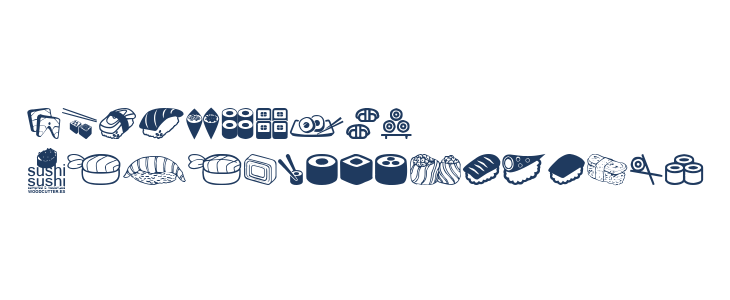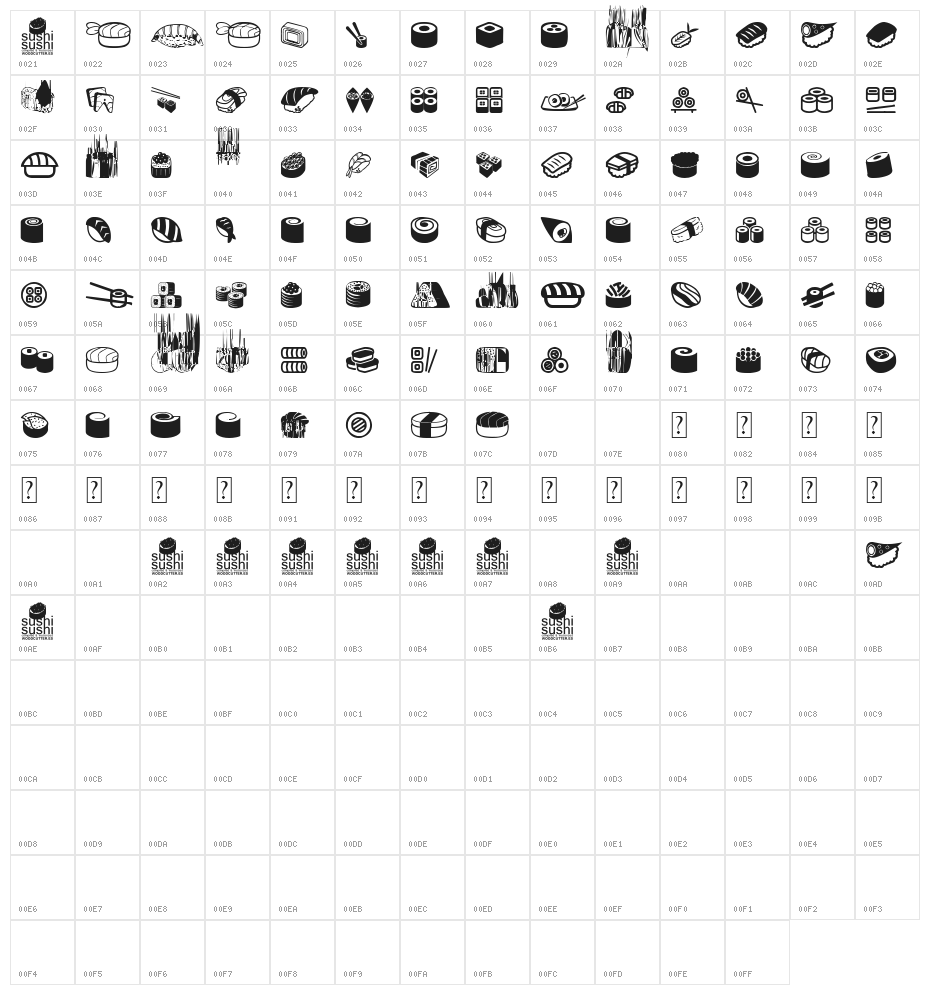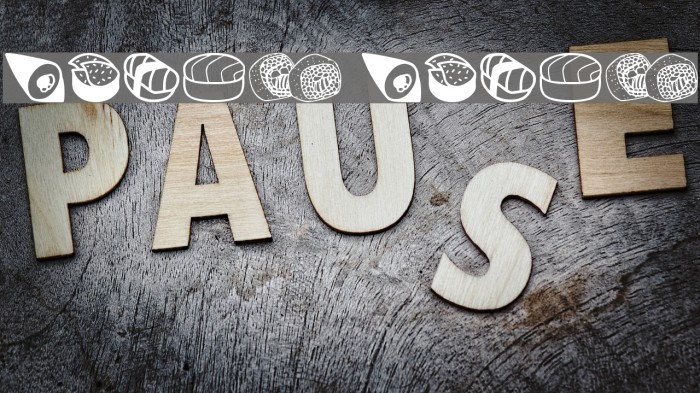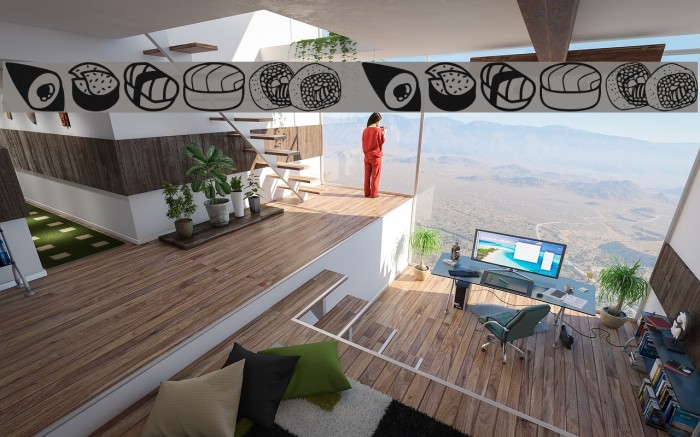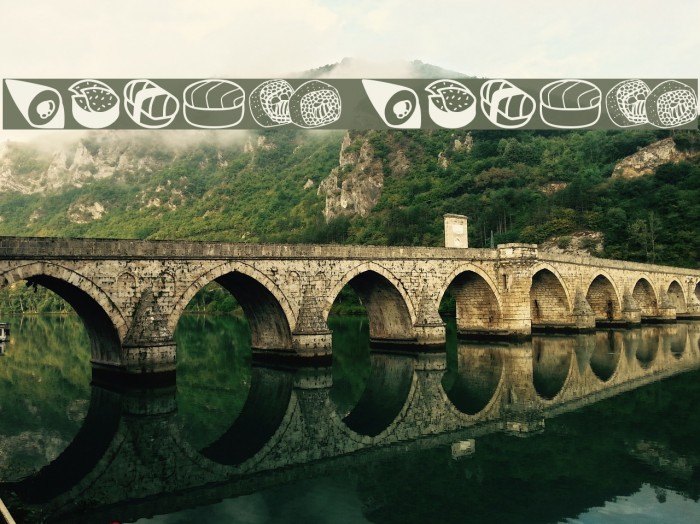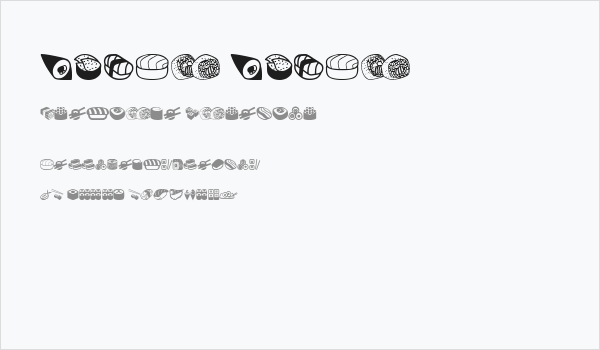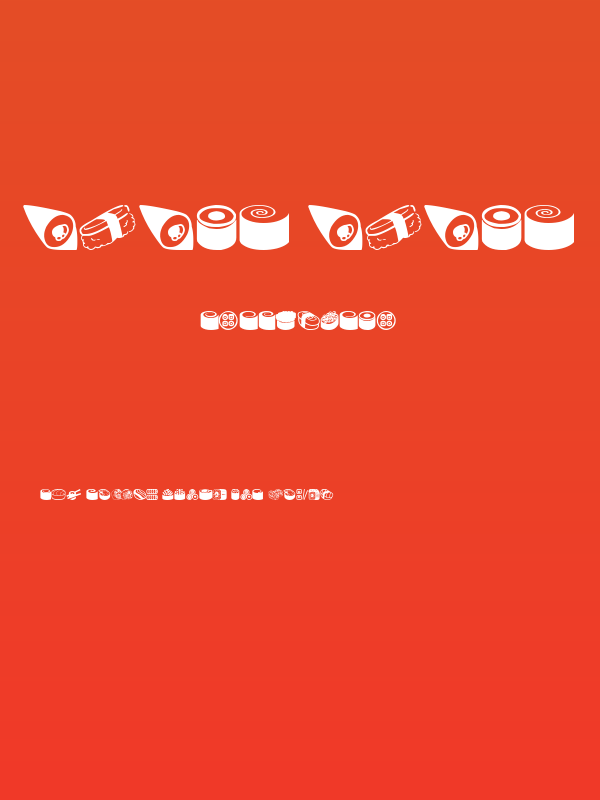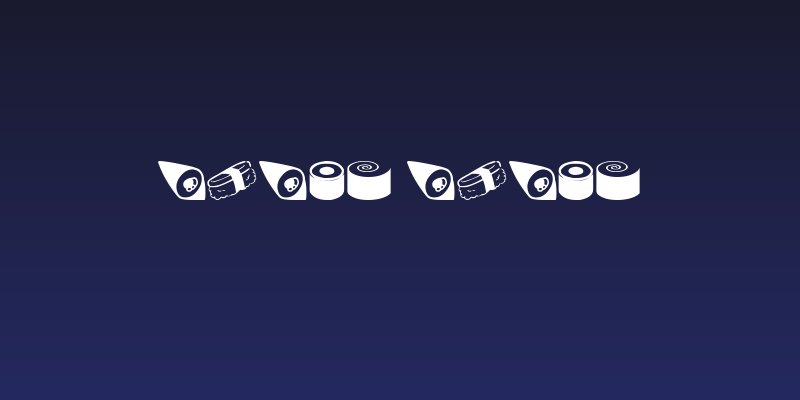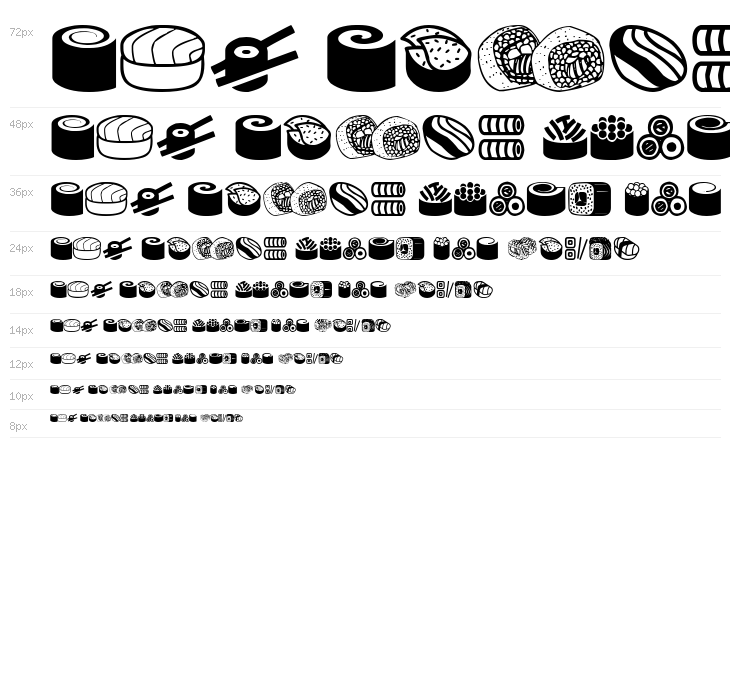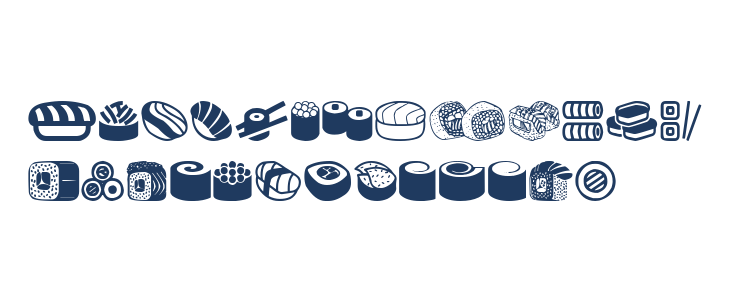
Sushi Sushi Font
Sushi Sushi Description
A playful decorative font composed entirely of sushi-themed illustrations, with each character represented by a unique sushi or Japanese food icon. The glyphs are bold, highly stylized, and use solid black fills with occasional negative space for detail, creating a visually striking and whimsical appearance.
| Overall Style | Decorative, Playful, Thematic |
| Use Case | Logos, Headlines, Posters, Themed graphics |
| Proposed Projects | Restaurant branding, food festival posters, children's menus, culinary event invitations, themed social media graphics. |